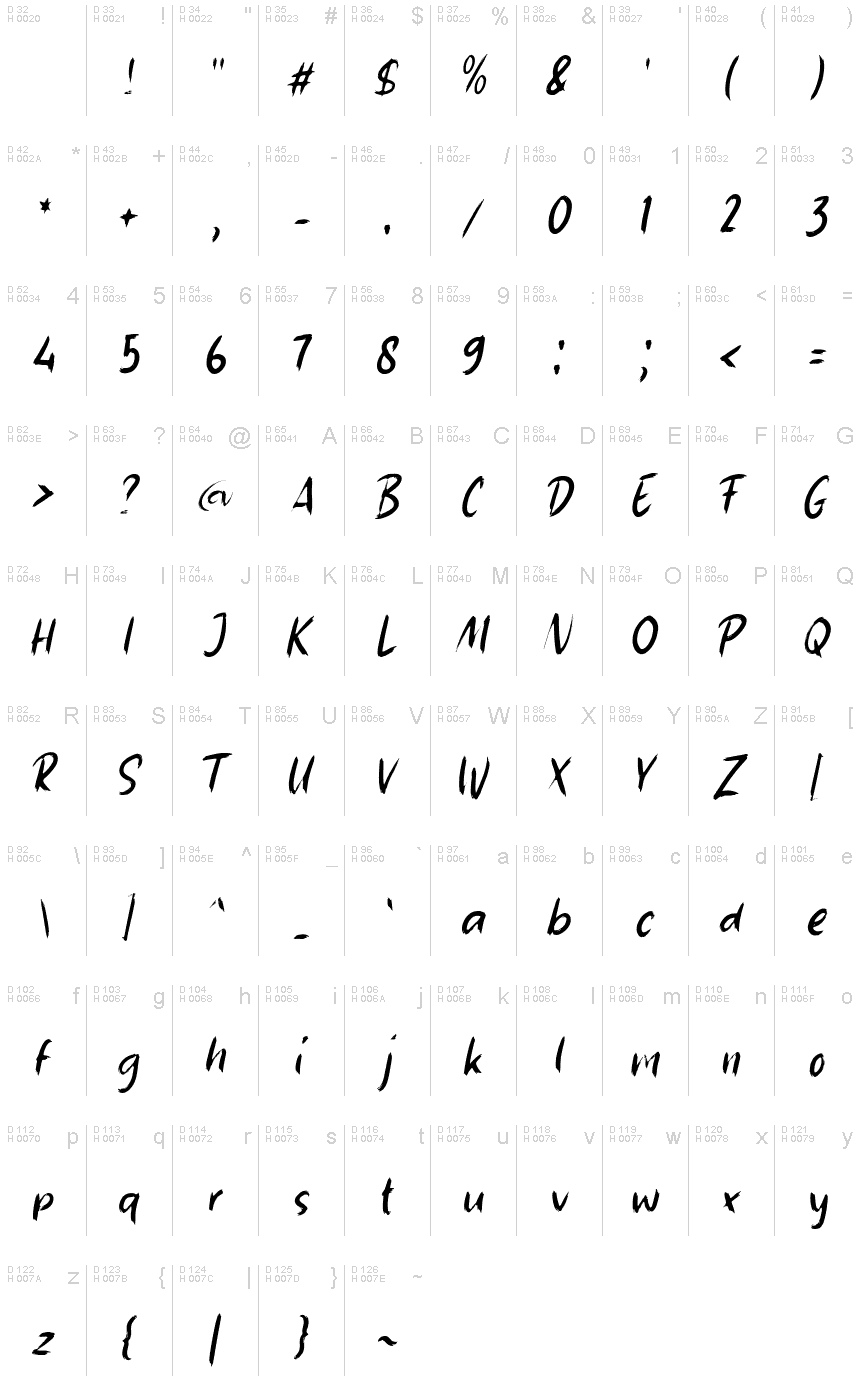
FROM HOME
From Home brings the warmth and authenticity of handcrafted design to your digital canvas. Created by wep, this semi-light brush font exudes a personal touch that's perfect for projects demanding intimacy and a dash of rustic charm. Its fluid, expressive strokes make it an ideal choice for everything from heartfelt invitations to bespoke branding.
Let From Home transform your creative ideas into engaging visual stories that resonate with your audience's desire for genuine, artisanal aesthetics.